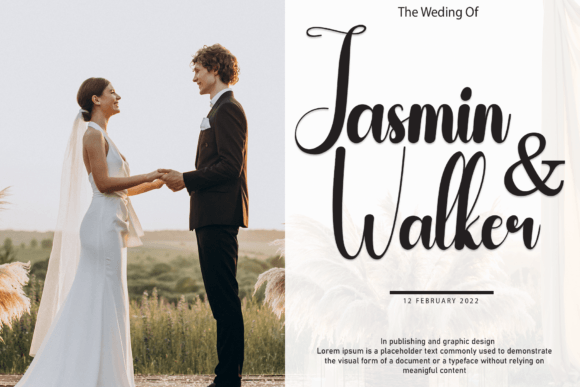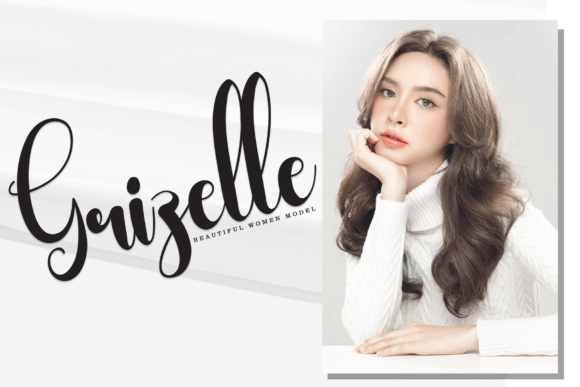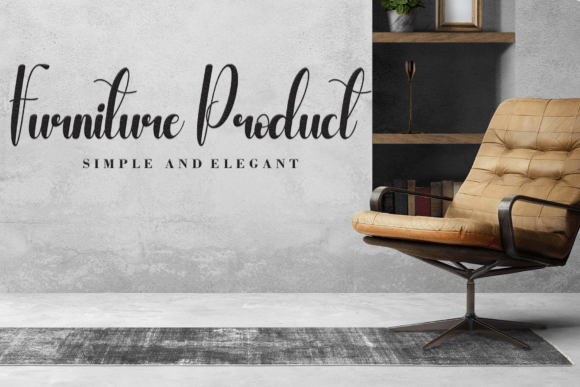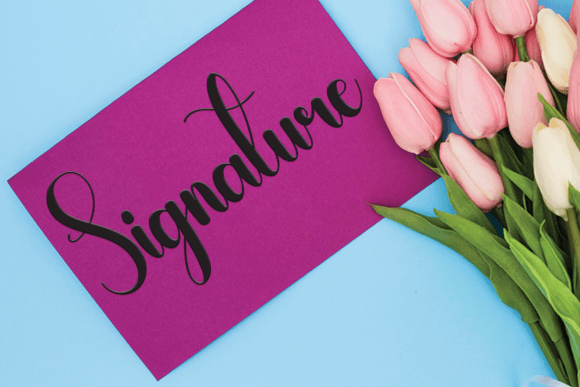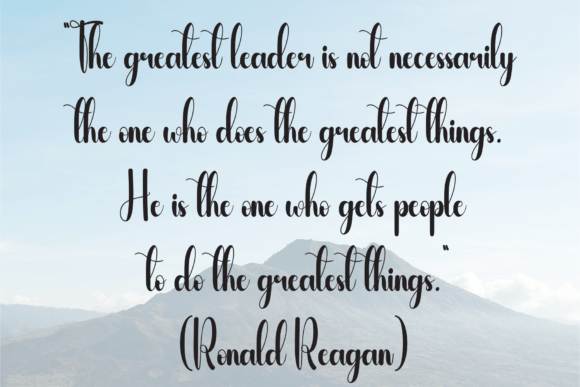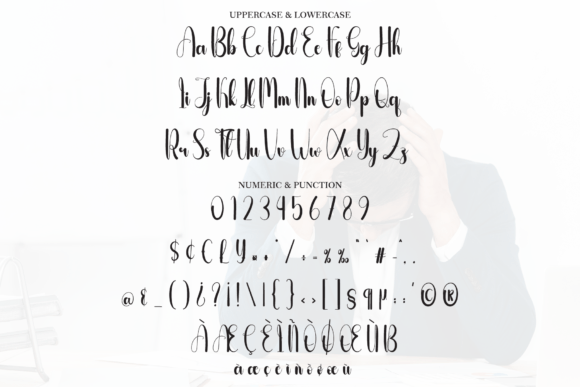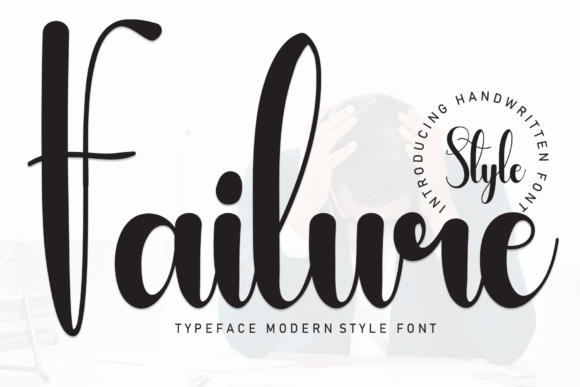
Introducing Failure Font: The Sweet and Friendly Handwritten Font for Your Design Needs
Are you tired of using the same old fonts for your designs? Do you want to add a touch of personality and whimsy to your wedding invitations, cards, and other creative projects? Look no further than Failure Font, a fresh and neat handwritten font that’s perfect for designers and crafters alike.
What is Failure Font?
Failure Font is a beautiful, handwritten font that’s designed to bring a smile to your face. With its sweet and friendly vibe, this font is ideal for anyone who wants to add a personal touch to their designs. Whether you’re creating wedding invitations, birthday cards, or social media graphics, Failure Font is the perfect choice.
Characteristics of Failure Font
So, what makes Failure Font so special? Here are just a few of its key characteristics:
- Handwritten style: Failure Font is a genuine handwritten font, with each letter and number carefully crafted to look like it was written by hand.
- Fresh and neat: This font is clean and easy to read, making it perfect for body text or headings.
- Sweet and friendly: Failure Font has a warm and approachable feel that’s perfect for designs that need a personal touch.
- Versatile: This font works beautifully in a variety of contexts, from formal wedding invitations to casual social media graphics.
Use Cases for Failure Font
So, what can you use Failure Font for? The possibilities are endless! Here are a few ideas to get you started:
- Wedding invitations: Add a touch of romance and whimsy to your wedding invitations with Failure Font.
- Birthday cards: Create personalized birthday cards that will make the recipient feel special.
- Social media graphics: Use Failure Font to add a personal touch to your social media graphics, from Facebook posts to Instagram stories.
- Branding and packaging: Use Failure Font to create custom branding and packaging that reflects your personality and style.
Why Choose Failure Font?
With so many fonts to choose from, why should you choose Failure Font? Here are just a few reasons:
- Unique and distinctive: Failure Font is a one-of-a-kind font that’s sure to make your designs stand out.
- Easy to read: This font is clean and easy to read, making it perfect for body text or headings.
- Customizable: Failure Font can be customized to fit your needs, from adjusting the size and color to adding your own textures and effects.
Tips for Using Failure Font
Here are a few tips for getting the most out of Failure Font:
- Use it sparingly: Failure Font is a bold and eye-catching font, so use it sparingly to avoid overwhelming your design.
- Pair it with other fonts: Try pairing Failure Font with other fonts to create a unique and interesting contrast.
- Experiment with colors and textures: Add some personality to your design by experimenting with different colors and textures.
Failure Font is a sweet and friendly handwritten font that’s perfect for designers and crafters who want to add a personal touch to their designs. With its fresh and neat style, this font is ideal for wedding invitations, cards, and other creative projects. So why not give it a try and see what amazing designs you can create?